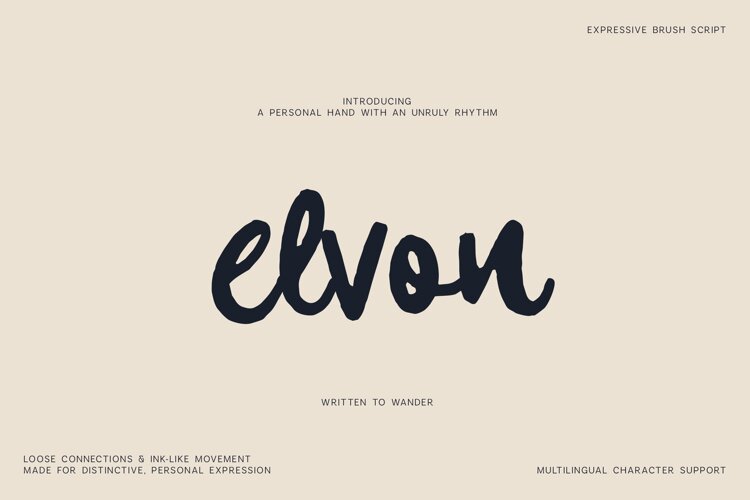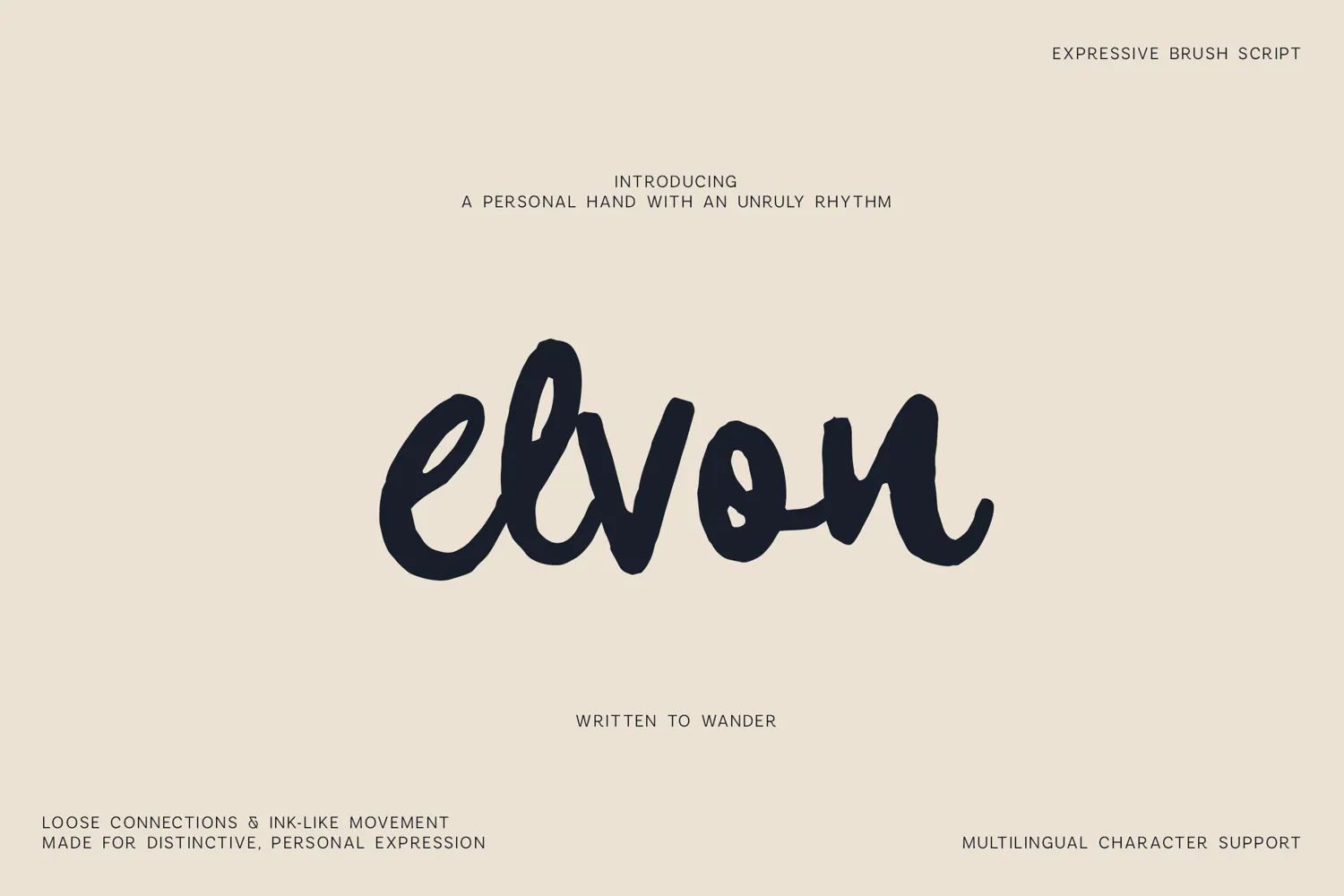
Elvon Expressive Handwritten Brush Font
Meet Elvon, an expressive handwritten brush font created with loose connections, bold organic strokes, and the unmistakable movement of natural hand lettering. Its free-flowing shapes and subtle irregularities give typography a character that feels spontaneous, creative, and genuinely handmade.
Elvon blends the energy of a brush script with the versatility of a contemporary handwritten font. The letters move naturally from one shape to another, producing words with a relaxed rhythm and strong visual personality. It works beautifully when you need typography that feels less mechanical and more human.
The extensive character set includes uppercase and lowercase letters, numerals, punctuation, symbols, and a wide selection of accented characters for multilingual projects.